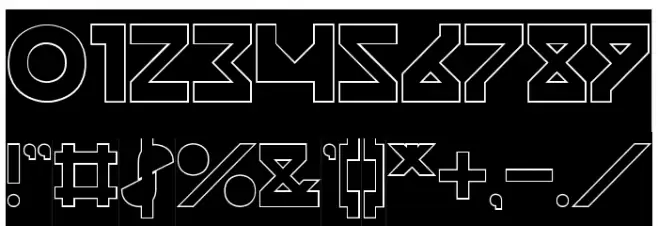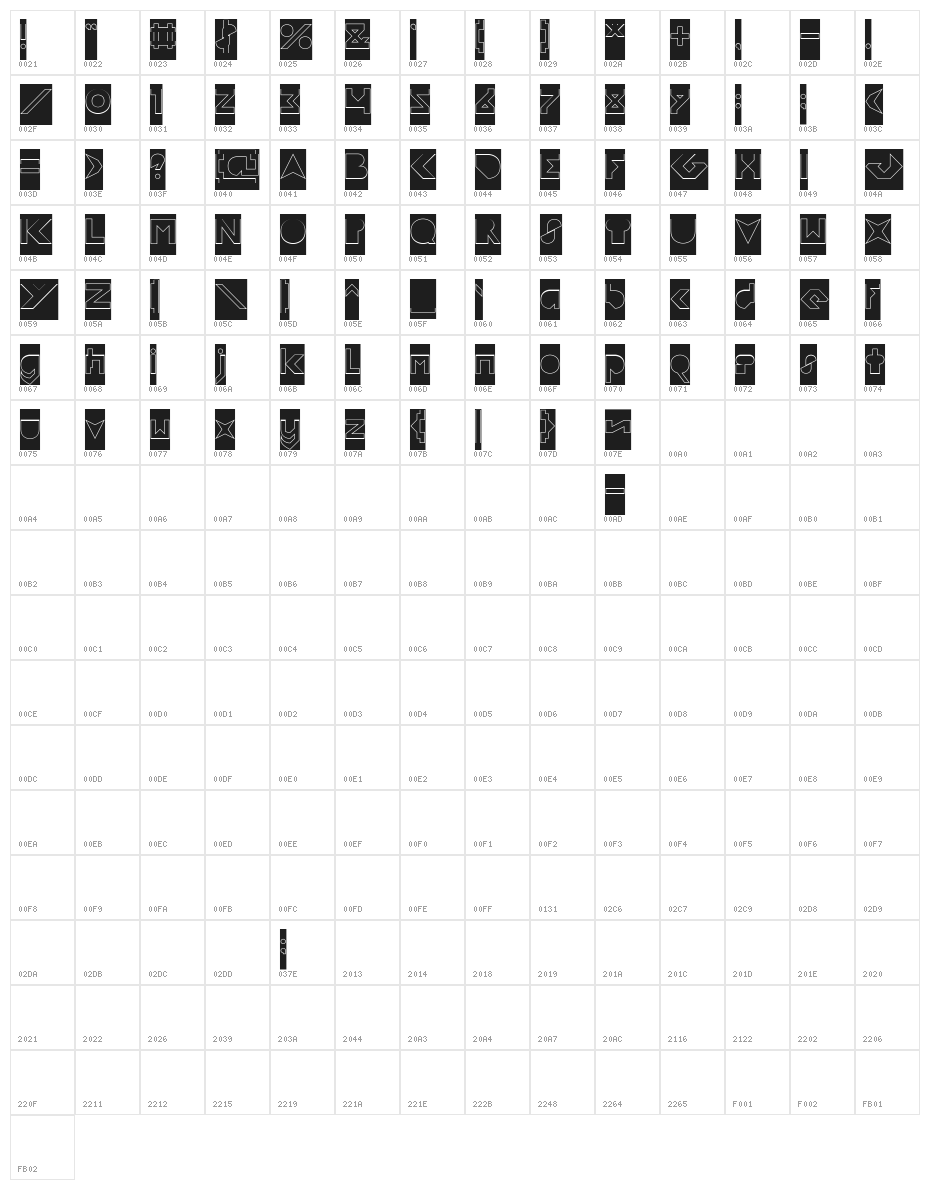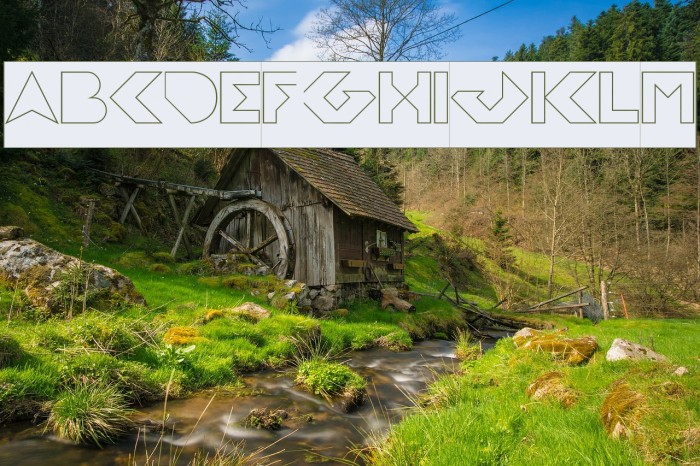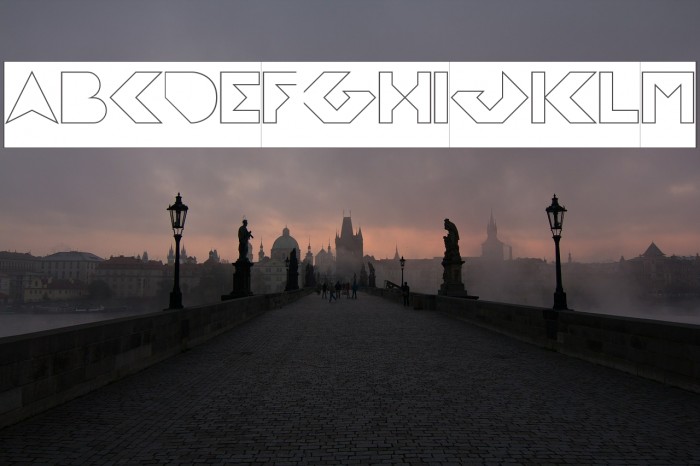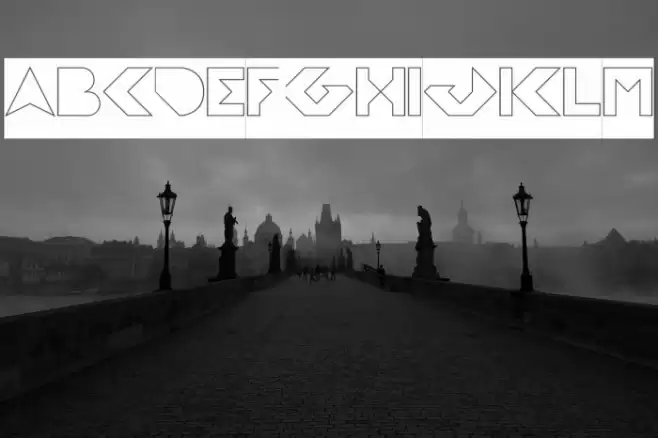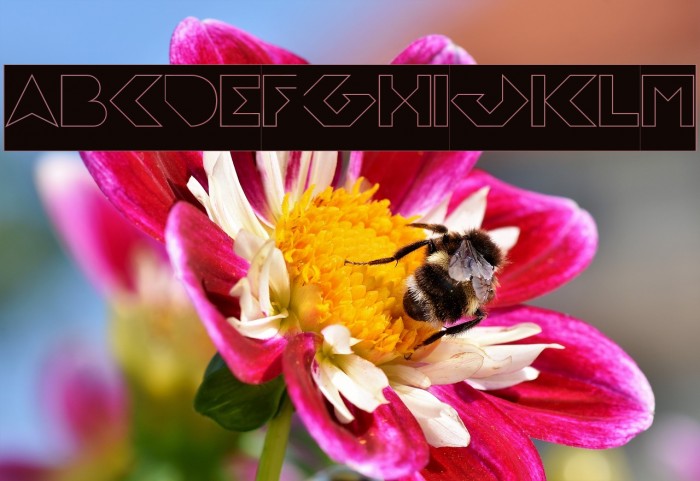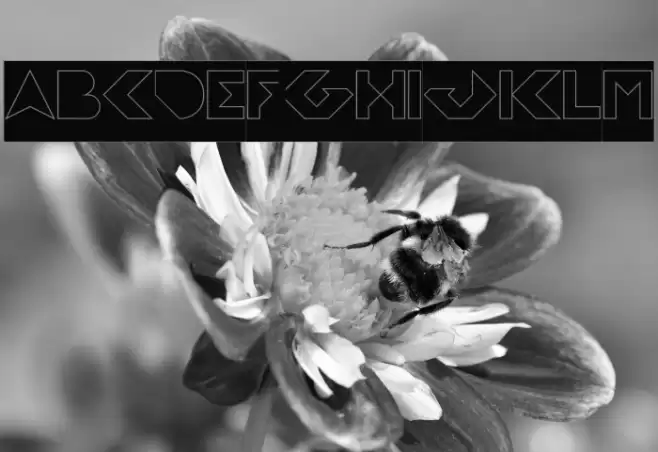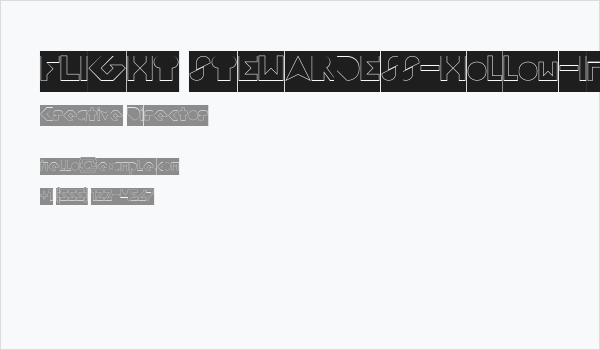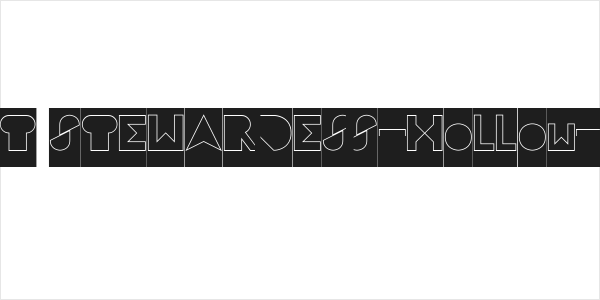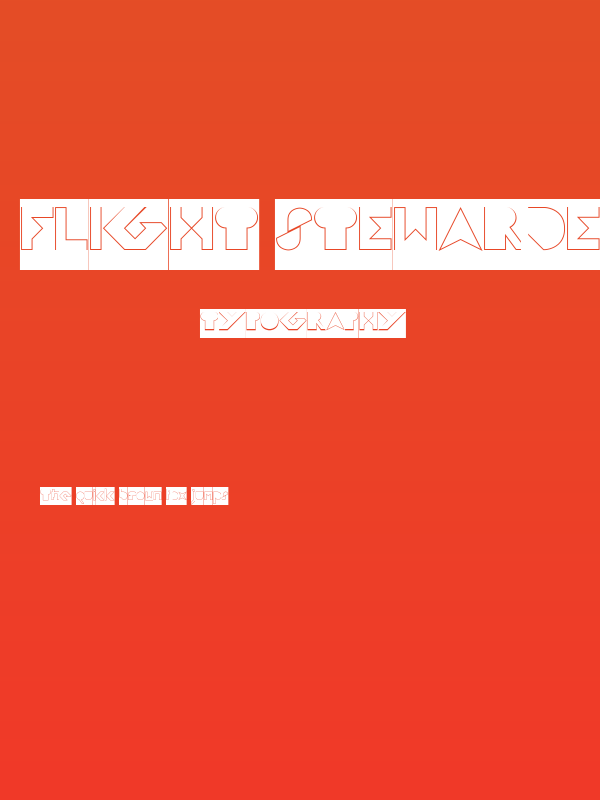
FLIGHT STEWARDESS-Hollow-Invers Font
FLIGHT STEWARDESS-Hollow-Invers Description
This font features a striking hollow design with a futuristic and geometric aesthetic. Each character is outlined with clean, sharp lines, creating a bold and eye-catching appearance. The uppercase letters are particularly angular, with some characters incorporating unique cutouts and slashes that add to the modern feel. The lowercase letters maintain the same geometric style, ensuring consistency throughout the typeface. Numbers and special characters follow the same design principles, making this font versatile for various creative applications. Its hollow nature allows for interesting layering effects, making it suitable for projects that require a standout visual impact.